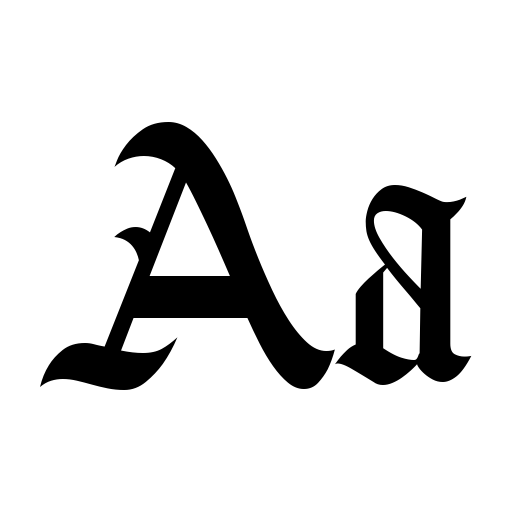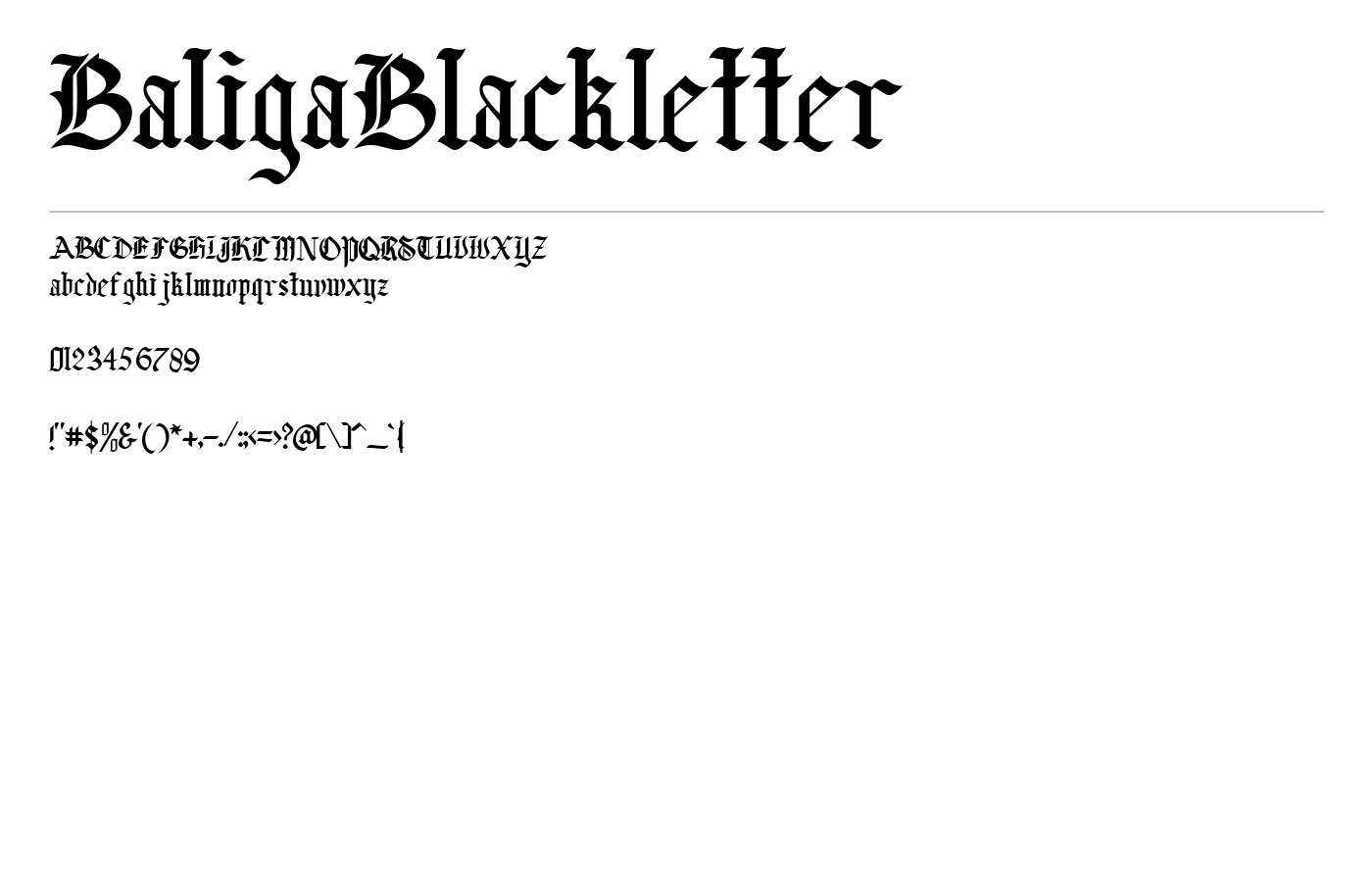
Baliga Blackletter is a bold, decorative serif font that captures the traditional Gothic blackletter style with sharp, angular strokes and ornate details. Its high contrast between thick and thin lines, along with elaborate letterforms, gives it a historical, medieval feel ideal for creating a strong, classic presence in logos, headlines, and branding that seeks to convey heritage, sophistication, or gothic elegance. This font works best in display settings where its intricate design can stand out, making it perfect for fashion, luxury, or cultural projects aiming for a distinctive and dramatic impact.
Baliga Blackletter Font
About Baliga Blackletter Font